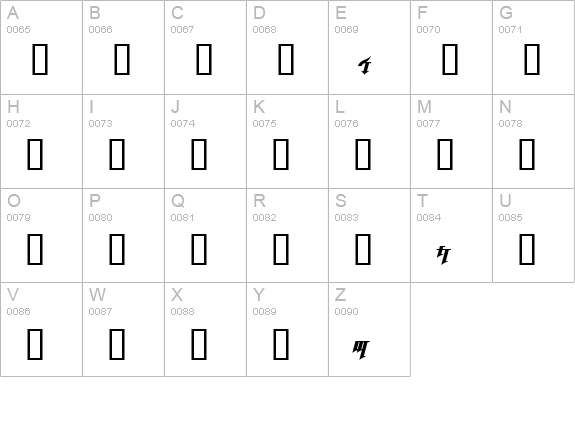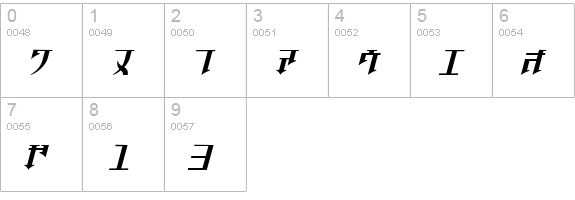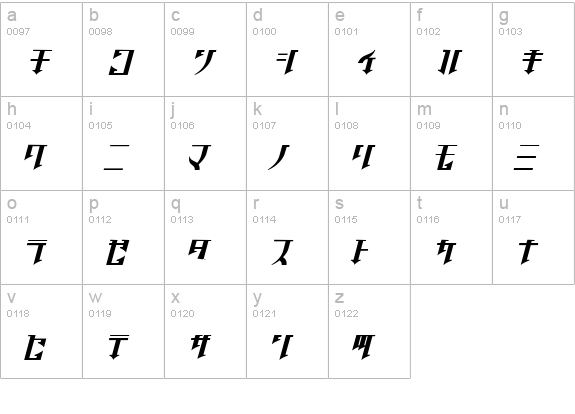
Golgotha Oblique J. is a distinctive, italic variant in the Golgotha typeface family \xE2\x80\x94 well suited to design and typography projects.
Golgotha Oblique J font is a striking and modern typeface that exudes sophistication and elegance. Its unique design features sharp angles and sleek lines, making it perfect for adding a contemporary touch to any design project. The font is versatile and can be used for a wide range of applications, from branding to editorial design. What sets Golgotha Oblique J font apart is its free availability, allowing designers to access this high-quality typeface without any cost. For those looking to elevate their designs with a premium font, Golgotha Oblique J font is the perfect choice. You can freely download Golgotha Oblique J font at FontsMarket.com and start incorporating its sleek and stylish characters into your projects today.